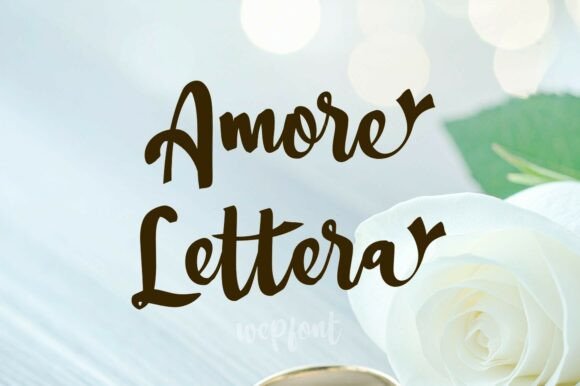
The Amore Lettera Font: A Beautifully Romantic Script Typeface
I still remember the design project that led me to discover the Amore Lettera font. I was working on a wedding invitation suite for a client who wanted something elegant, yet personal and heartfelt. As I scrolled through font after font, nothing seemed quite right – until I stumbled upon Amore Lettera. Its delicate, connected strokes and charming flourishes immediately captured my attention, and I knew I had found the perfect fit.
What Makes Amore Lettera Special?
Amore Lettera is a beautifully romantic and elegantly flowing script typeface that embodies love, warmth, and personal sentiment. Its fluid connections and gentle curves give it an inherently romantic and refined aesthetic, perfect for themes of love and celebration. Here are some of the key features that make Amore Lettera stand out:
• ✨ Romantic & Elegant: The font’s fluid connections and gentle curves create a sophisticated yet intimate appearance.
• āœ… Heartfelt & Personal: Amore Lettera captures the unique charm of authentic handwriting, making any message feel sincere, warm, and personally crafted.
• šŸ’• Beautiful Flourishes: The subtle decorative elements, such as the heart dotting the ā€˜i’ or at the end of some words, add a unique, endearing touch without being overpowering.
• šŸŽ‰ Versatile for Special Occasions: Its classic yet inviting style makes it suitable for a wide range of events and products centered around emotional connections.
While Amore Lettera is a stunning font, it’s not without its quirks. Here’s what I love and what you should be aware of:
• ✨ The font’s consistency in quality and style, making it perfect for long-form text or short phrases.
• āœ… The range of OpenType features, including glyphs and stylistic alternates, which allow for customization and creativity.
• šŸ’• The attention to detail in the font’s design, from the subtle flourishes to the carefully crafted letterforms.
• āš ļø The font may not be suitable for very small text sizes, as some details may get lost.
• šŸ¤” Some users may find the font’s elegance and refinement too ornate for certain projects.
The designer of Amore Lettera drew inspiration from the art of handwritten love letters. With a focus on creating a font that embodies warmth, love, and personal sentiment, they carefully crafted each letterform and flourish to evoke a sense of romance and elegance. The result is a font that’s both sophisticated and intimate, perfect for special occasions and emotional connections.
Author wep – Wahyu Eka Prasetya
Here are some common questions about Amore Lettera:
Q: What makes Amore Lettera unique?
A: Amore Lettera’s unique blend of elegance, romance, and personality makes it stand out from other script fonts.
Q: Is Amore Lettera available in different languages?
A: Amore Lettera supports a range of languages, including English, French, German, and Italian.